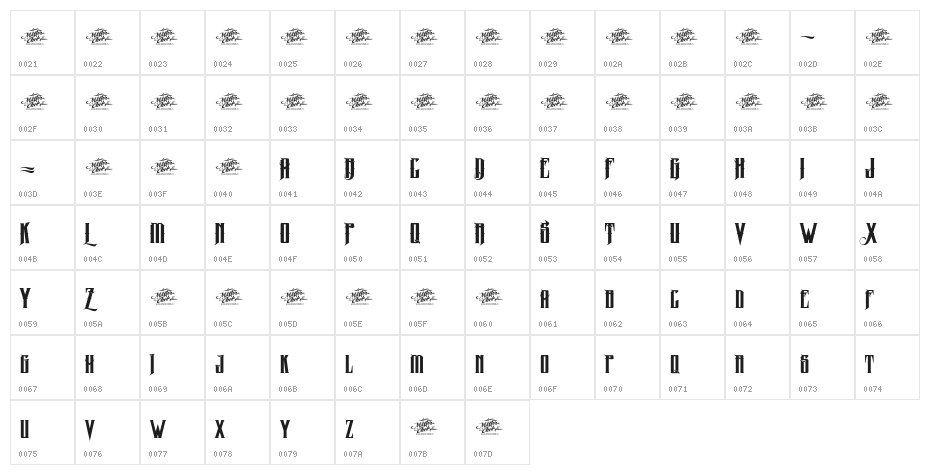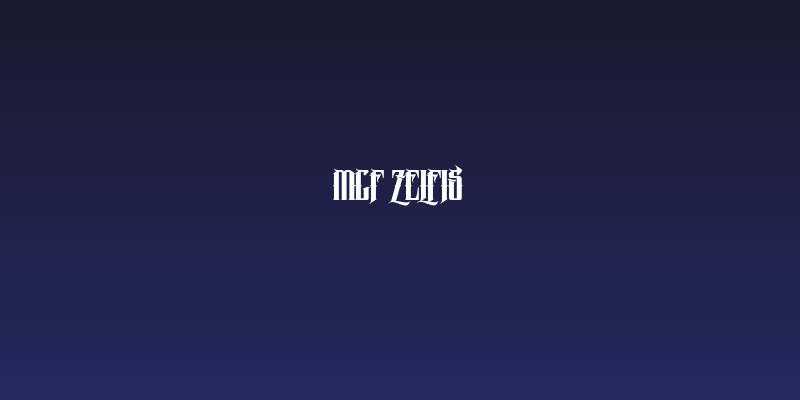
MCF zelfis Font
MCF zelfis Description
This font features a bold and striking design with a distinct blackletter style. The uppercase letters exhibit sharp, angular lines with intricate detailing, reminiscent of traditional Gothic script. The lowercase letters maintain a similar aesthetic, ensuring consistency throughout the typeface. The numerals and special characters are crafted with the same attention to detail, making them suitable for decorative purposes. The overall appearance is both dramatic and elegant, making it ideal for projects that require a touch of historical or medieval flair.
| Proposed Projects | Ideal for use in branding, posters, book covers, and any design requiring a historical or medieval theme. |